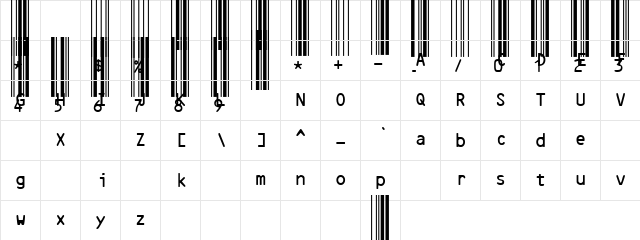
IDAutomation.com Code39 Regular
Design Context for IDAutomation.com Code39 Typeface
IDAutomation.com Code39 uses fixed-width spacing throughout, giving it the structured, systematic character associated with coding environments and technical documentation.
Pro Tip: Use IDAutomation.com Code39 with slightly increased line-height for extended reading — fixed-width spacing can feel dense in longer passages without extra breathing room.